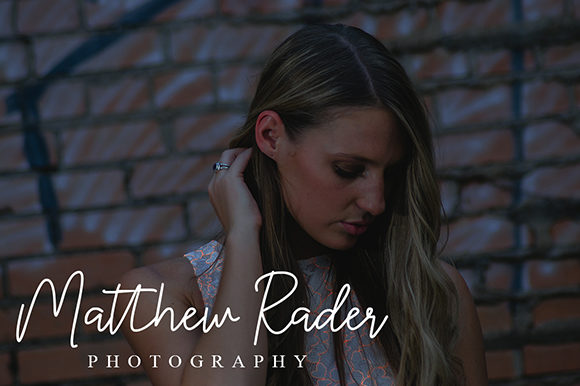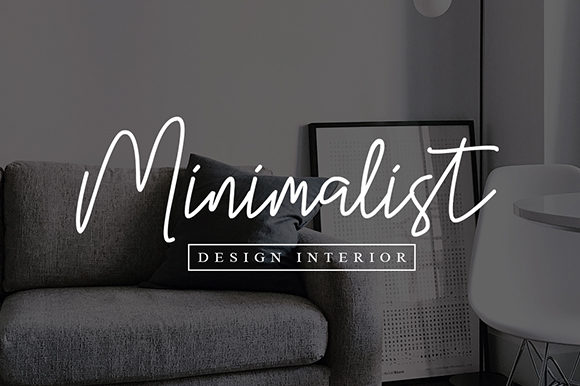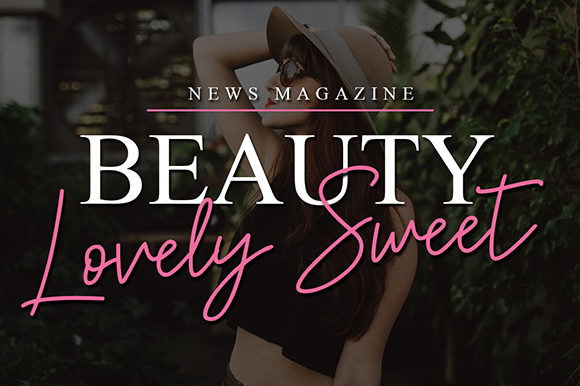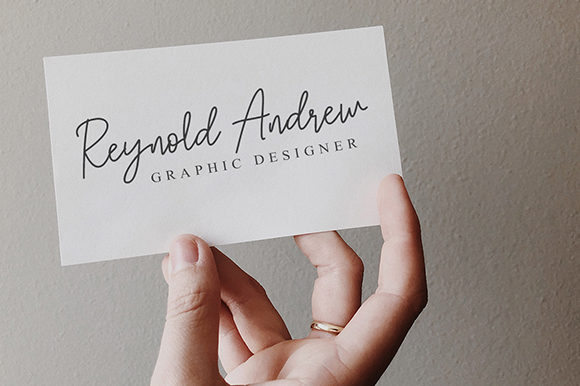
HomeScript FontsHanster Script Font Script Fonts Hanster Script Font FacebookXPinterestWhatsApp Hanster Script Font Poster 2 Hanster Script Font Poster 3 Hanster Script Font Poster 4 Hanster Script Font Poster 5 Hanster Script Font Poster 6 About Hanster Script Font Hanster is a fun and cool handwritten font with an authentic feel. Get inspired by its unique flavor! DOWNLOAD NOW People also explored Sareeka Font Syahrul Mubarok Font Refullha Font MultiType Lines Display Wide Bold Font Rain Rainbow Font King Bettyle Font Mighttel Font Bournemouth Font Gellosia Font 284 0 TagsHanster Script Font Previous articleThe Submit FontNext articleHello Anissta Font LEAVE A REPLY Cancel reply Comment: Please enter your comment! Name:* Please enter your name here Email:* You have entered an incorrect email address! Please enter your email address here Website: Save my name, email, and website in this browser for the next time I comment. Personal Use Free Browie Personal Use Free Read more about this font Lixdu Personal Use Free Read more about this font Hunting Font Personal Use Free Read more about this font Sunflower Personal Use Free Read more about this font BLOG Top 10 Handwritten Fonts That Elevate Your Designs Top 10 Handwritten Fonts That Will Elevate Your Designs Handwritten fonts bring a warm, personal touch to every creative project. Whether you're designing logos, invitations,... Best Fonts for T-Shirt Design – Top 2025 Picks Where to Buy American Fonts Online in 2024 Fonts That Capture the Spirit of New York City